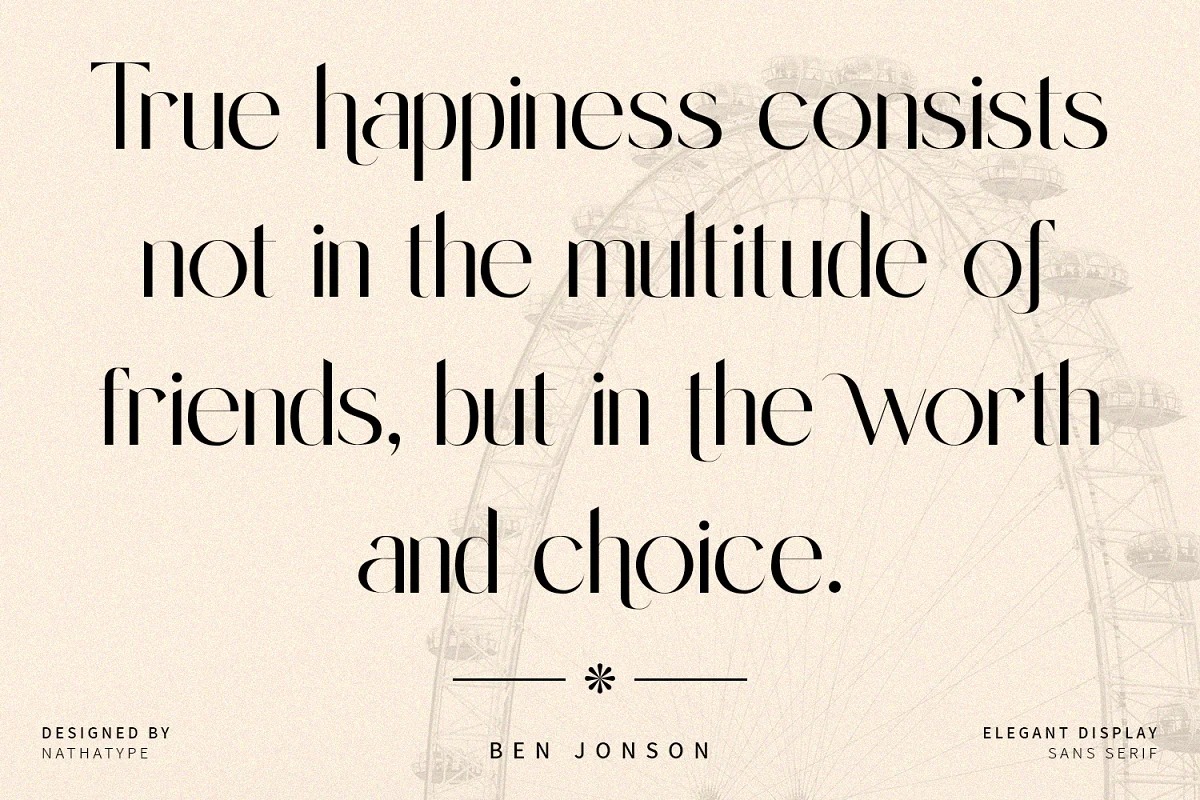
Elegist Sans Serif Font
This is a modern sans serif typeface created by Din Studio with a unique ligature and aletrnate style. A simple serif with special impression. Through this font, it creates simple, clean yet versatile looks. It is also cleanly designed font that’s easy to read and will look great in a variety of sizes.